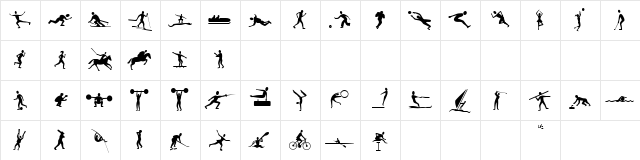
Athletes Normal Font Preview
Athletes Normal
Design Context for Athletes Typeface
Athletes brings high-energy athletic personality to the page — its confident, muscular forms are built for impact.
Built for sports team identities, athletic apparel, event posters, and high-energy promotional material.